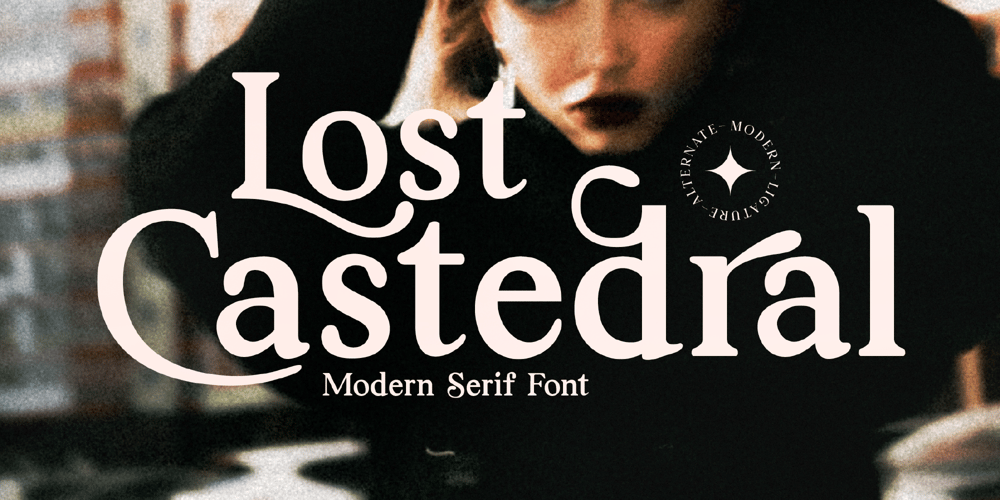
Lost Castedral
Lost Castedral font
Lost Castedral Font Family was designed by Heru Utama Putra and published by Letterena Studios. Lost Castedral contains 2 styles and family package options. Lost Castedral is a modern and stylish serif font. Add it to any of your designs, and enjoy the results! This font is PUA encoded which means you can access all of the glyphs and swashes with ease!